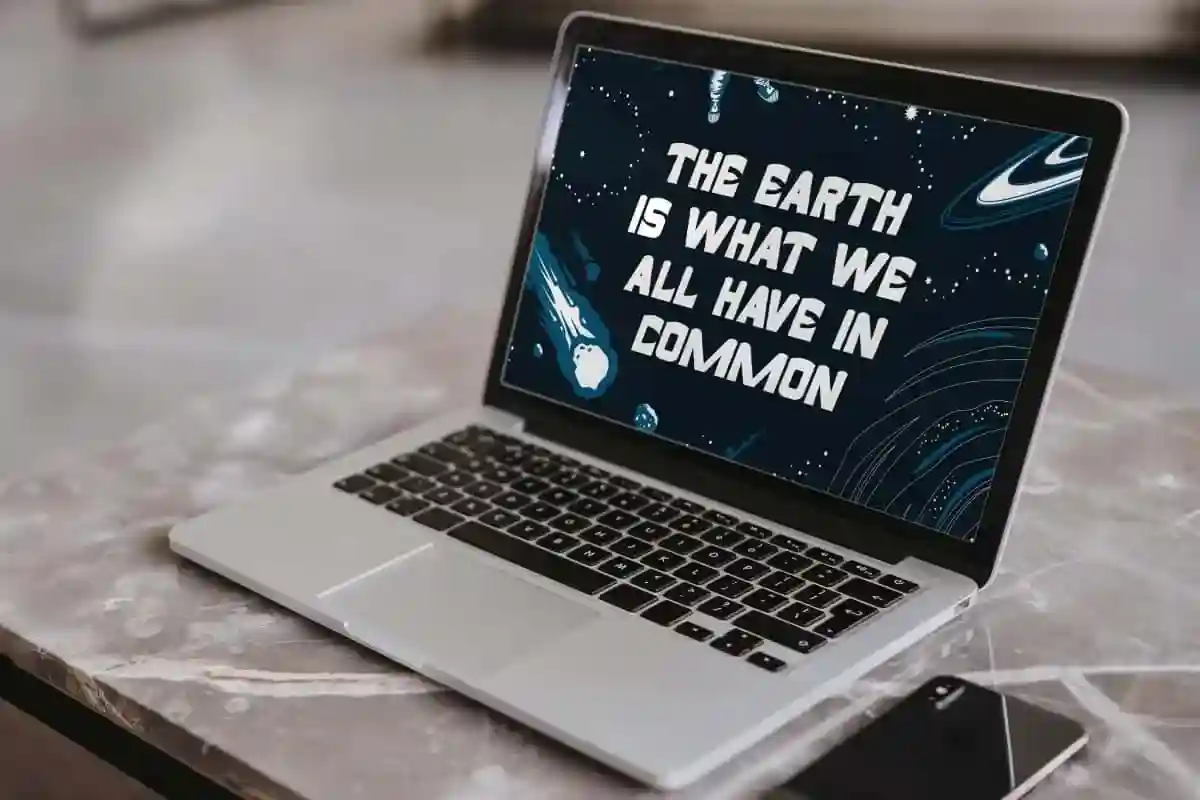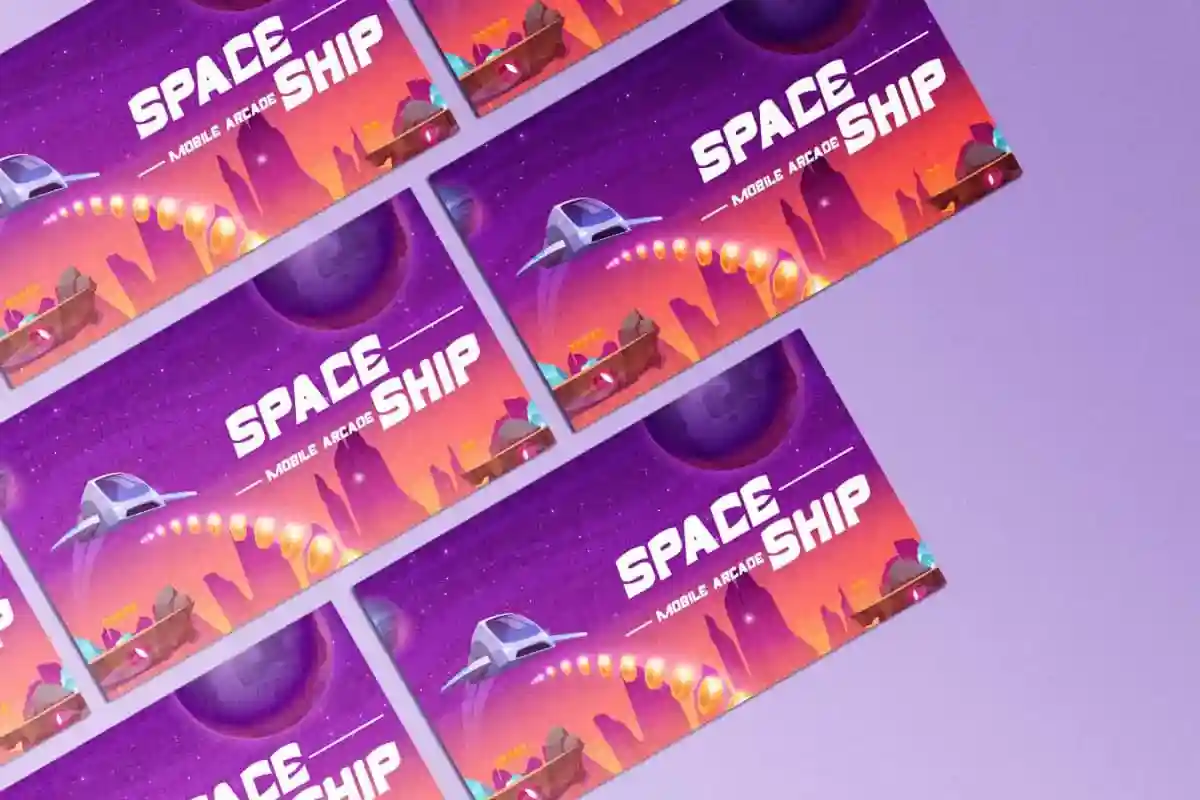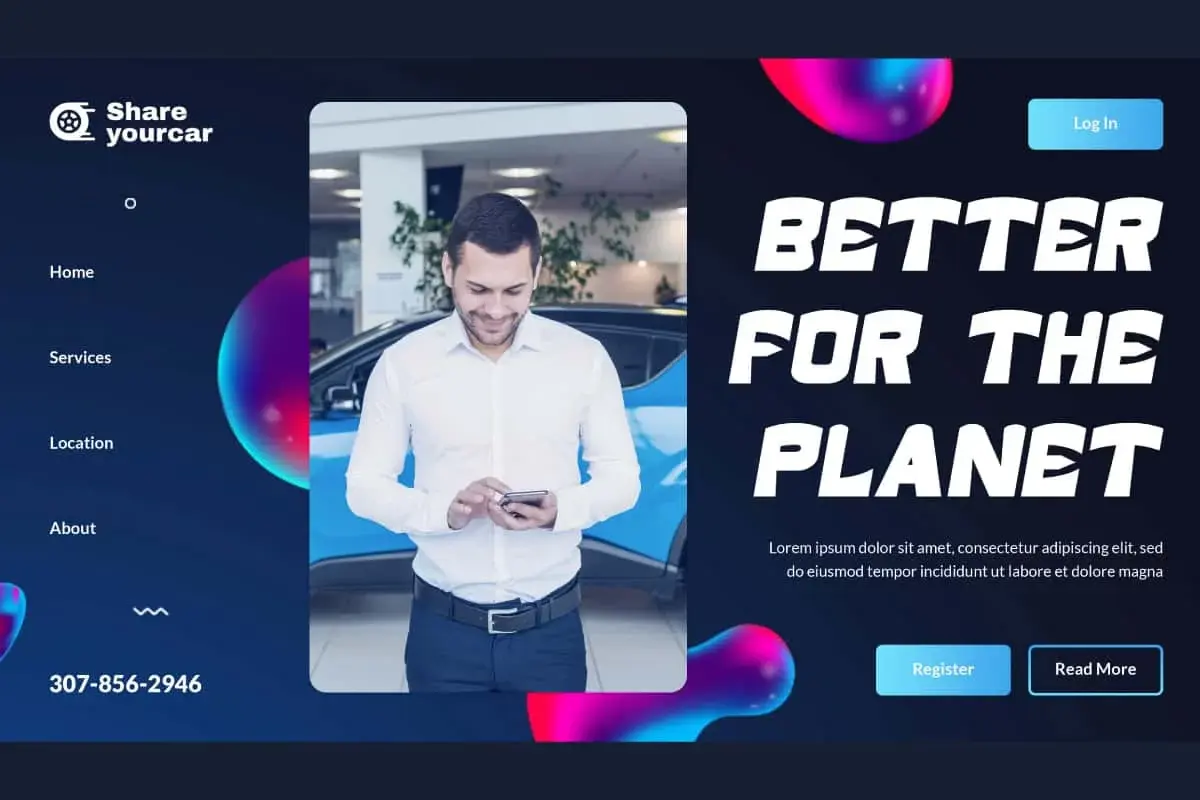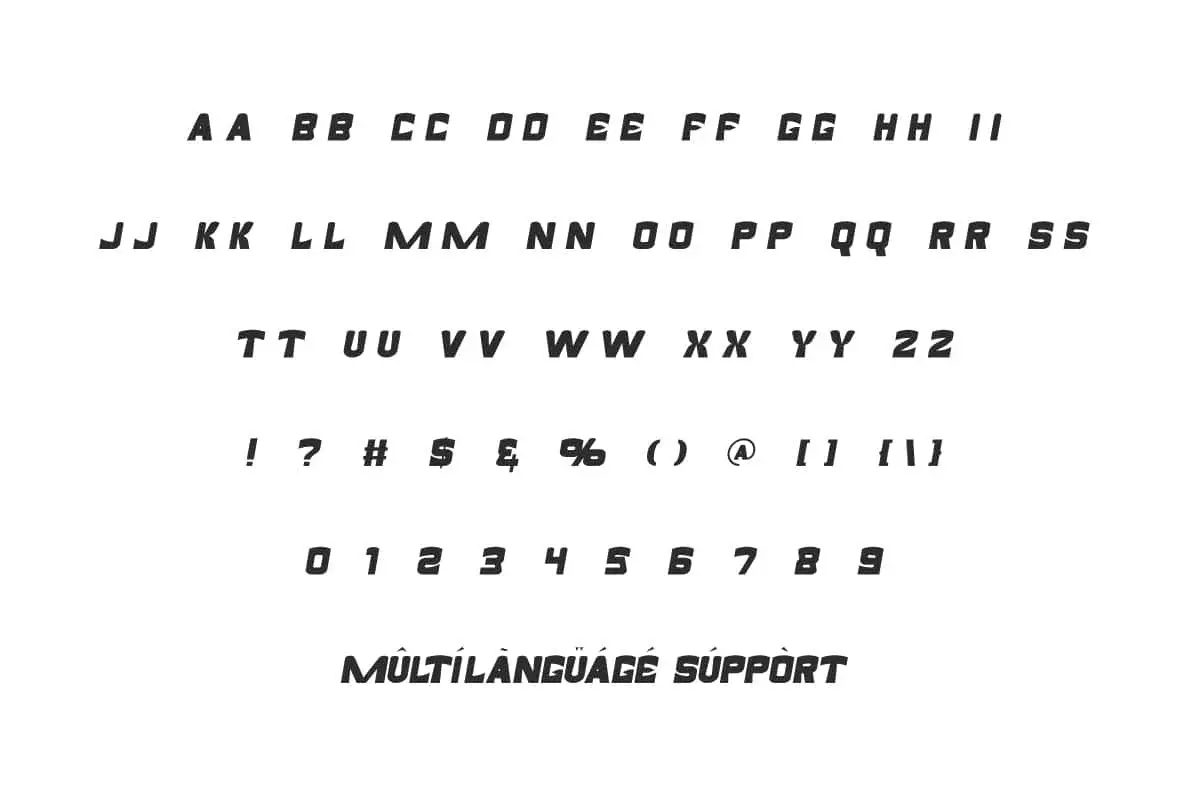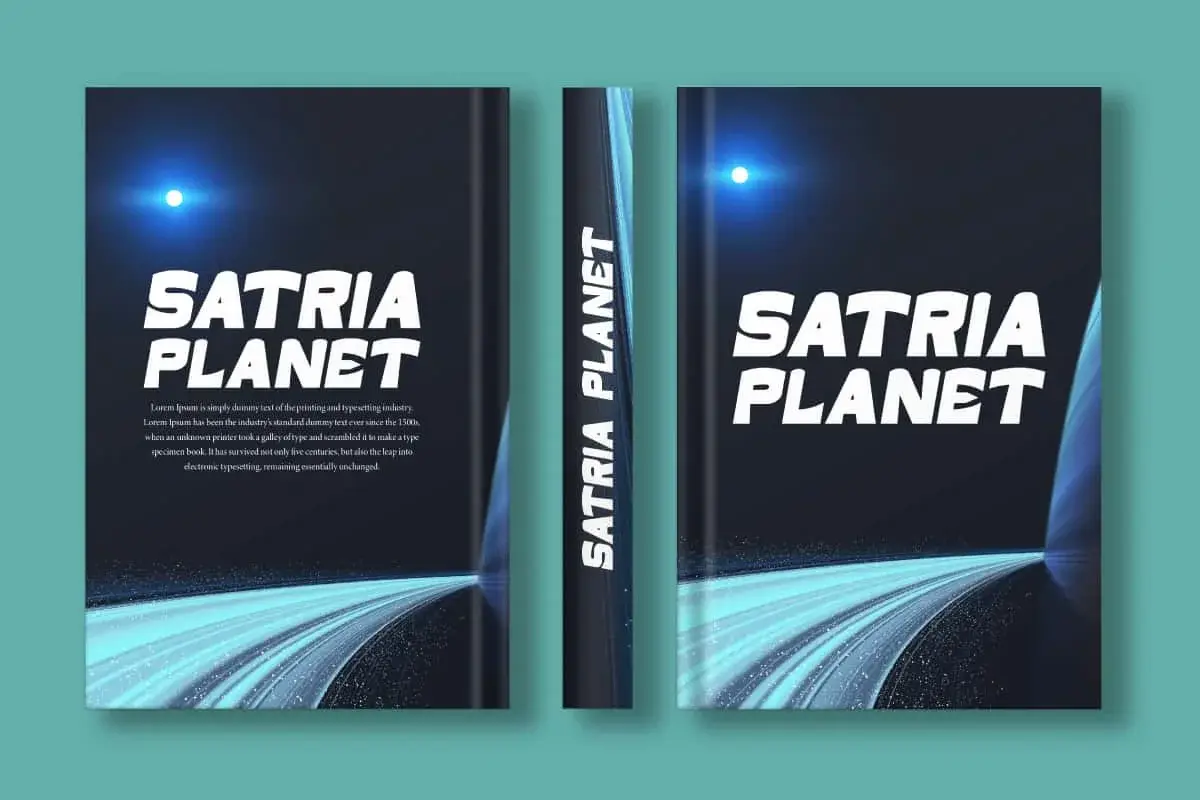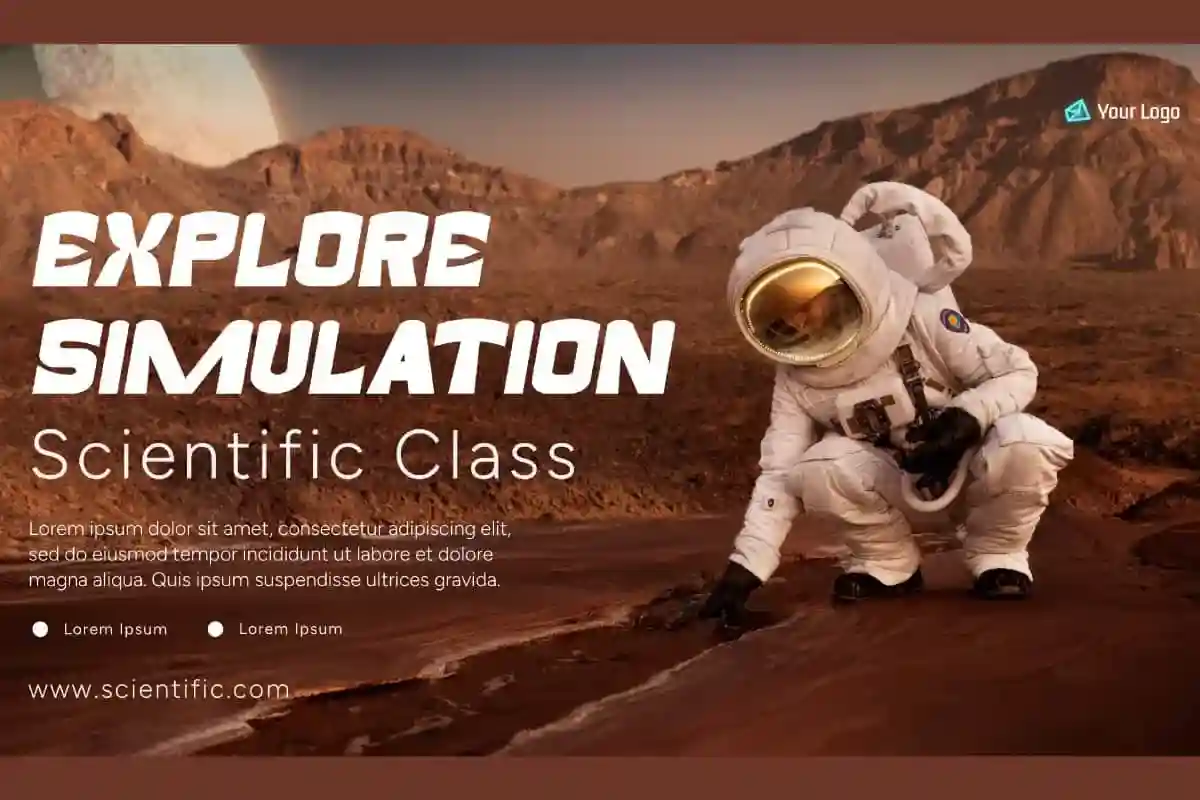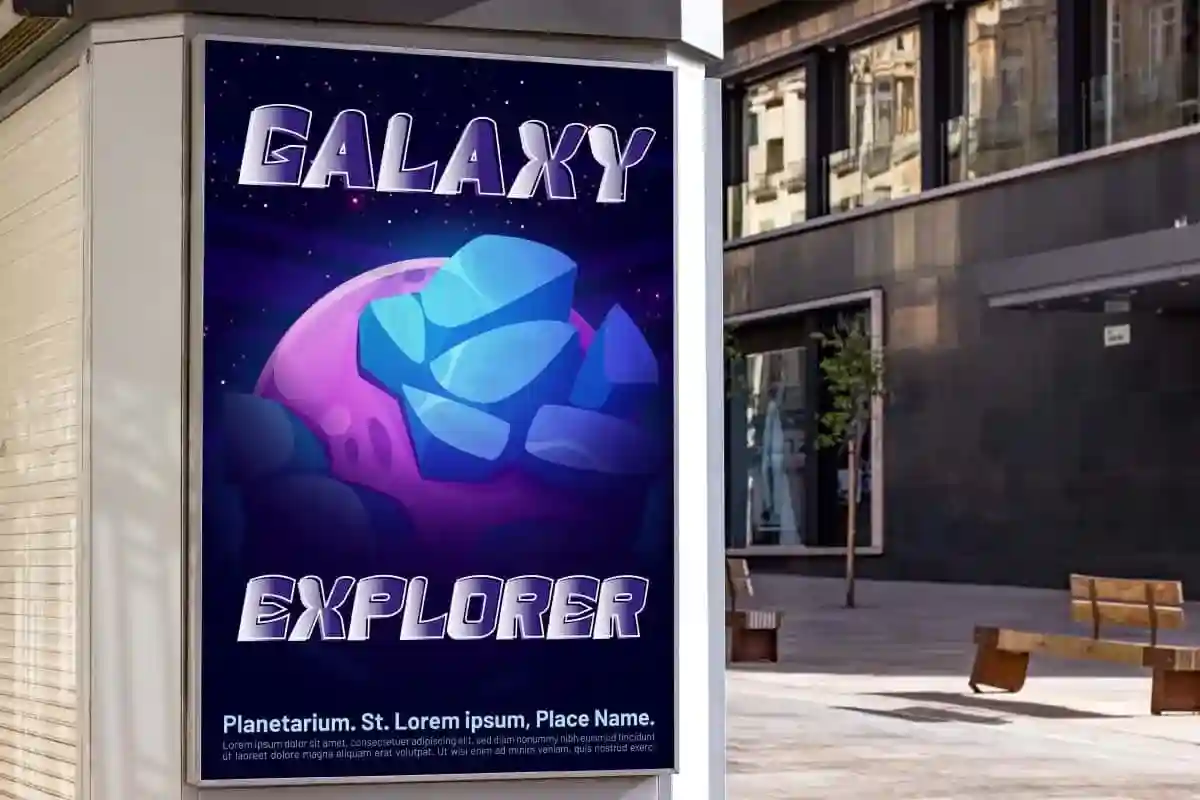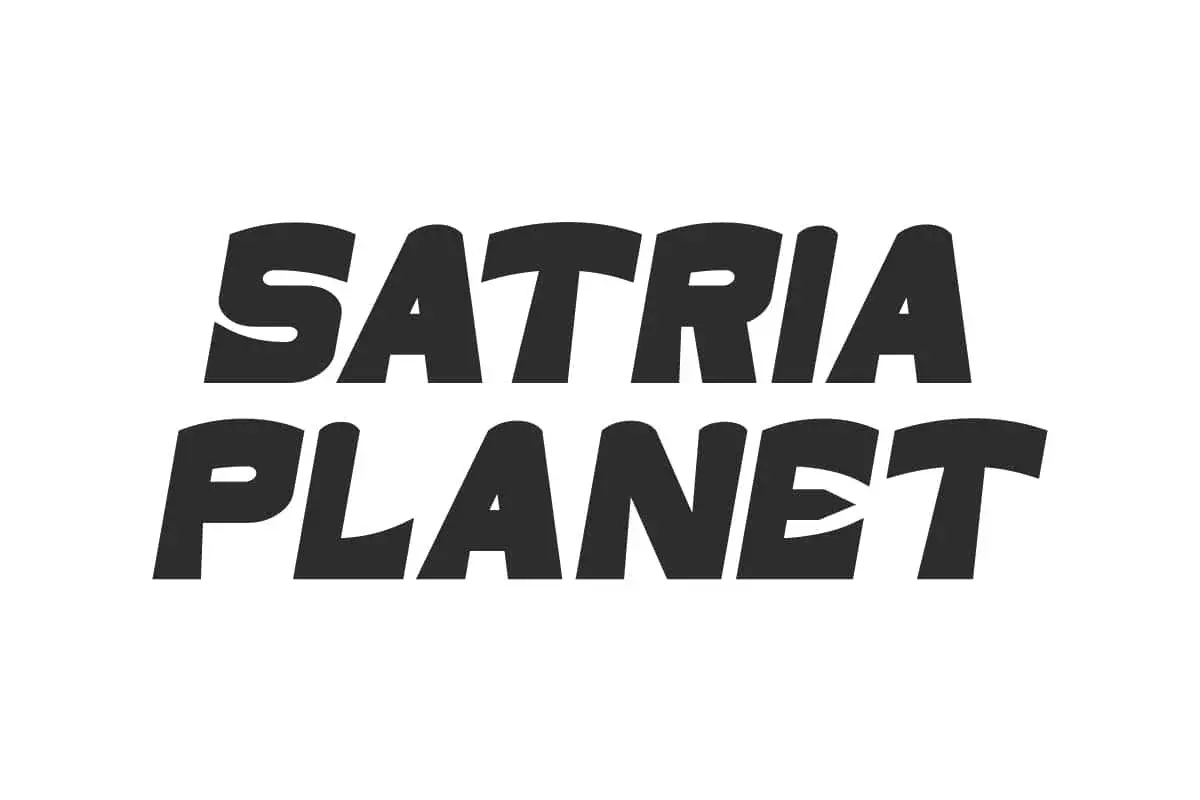
Satria Planet Font is a stunning display font with a shape and boldness that stands out. This font perfect for logotype such as heavyweight, sport, technology etc.
Satria Planet Font is a bold unique gaming display font with an unusual and contemporary style. Originally inspired by racing sports fonts but leaning more towards a space theme. It would be perfect as part of a design project that demands a minimalist yet strong typographic look, such as billboard ads, brochure, cards design, cover, headers, poster, website, etc.
Satria Planet Font includes full set of ALL CAPS for Uppercase and Lowercase Basic Characters, Numbers, Punctuation, and Symbols. This font will be versatile to use in a techno or sports feel. Both personal and professional use are permitted. Its slightly different shape with bold weight is able to give an impactful visual. Ideal for advertising purpose, automotive, game developer, graphic design, sport, etc.